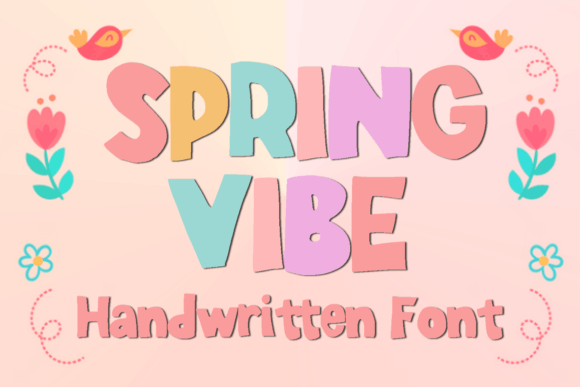
Introducing Spring Vibe Font - A Joyous Journey of Creative Expression!
Embark on a delightful adventure with Spring Vibe Font, a captivating display font that breathes life into your creative projects. Its playful and exuberant nature makes it the perfect choice for adding a touch of whimsy and cheer to your designs.
With Spring Vibe Font, you'll discover a world of possibilities. Whether you're designing t-shirts that radiate positivity, crafting enchanting children's books, or creating greeting cards that spread joy, this font is your perfect companion. Its bold and lively strokes bring a sense of movement and energy to your creations, leaving a lasting impression on those who behold them.
Imagine adorning your posters with the vibrant characters of Spring Vibe Font, capturing the attention of all who see them. Its playful curves and energetic lines create a visual symphony that invites viewers to immerse themselves in your designs. From playful stickers that add a dash of fun to your belongings to eye-catching headlines that demand attention, Spring Vibe Font is the ultimate tool for making a statement.